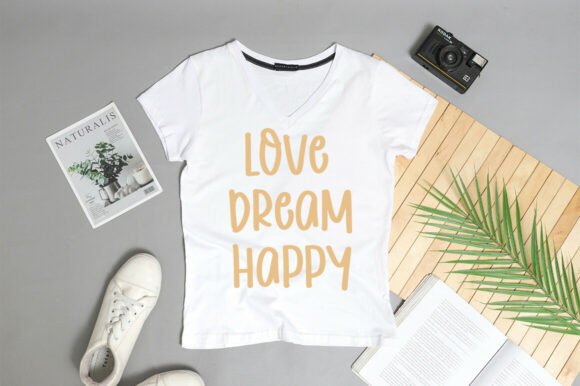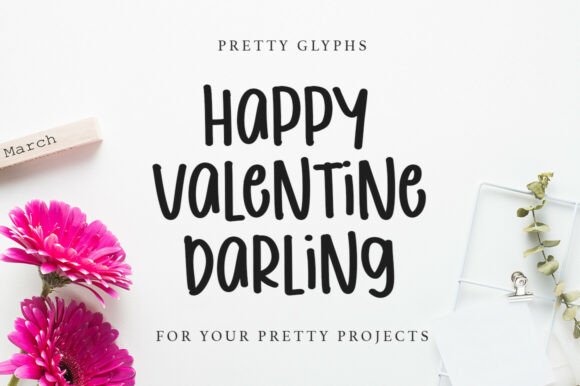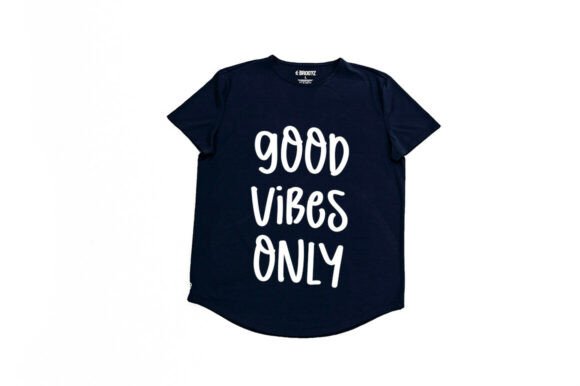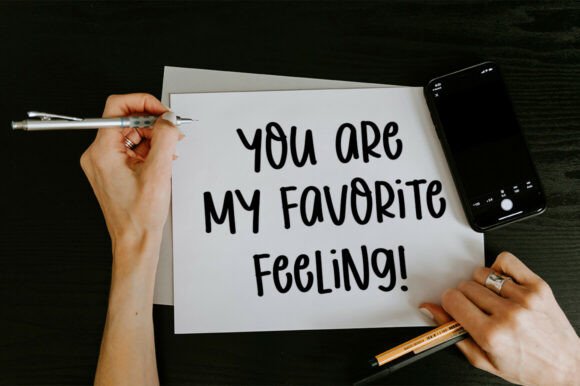
Introduction to Kernalis Font Font
Fonts play a crucial role in design, and the Kernalis Font font is a typeface that brings both character and versatility to any project. Whether you’re working on a branding project, a website, or a print design, the Kernalis Font font offers a unique style that can elevate your work.
This handwritten brush font is crafted to feel bold, expressive, and effortlessly stylish.
Inspired by real brush lettering, each character features natural strokes, dynamic movement, and a handcrafted texture that instantly elevates any design Designed for creatives who want a strong personality and authentic vibes, this font brings a perfect balance between casual freedom and modern aesthetics.
Key Features of Kernalis Font Font
Why Choose Kernalis Font Font?
The Kernalis Font font is more than just a typeface – it’s a design tool that helps you communicate your message with style and clarity. Its unique character set and versatile design make it suitable for a wide range of applications, from elegant invitations to bold headlines.
With its carefully crafted letterforms and balanced proportions, the Kernalis Font font ensures readability and visual appeal across all mediums.
What makes Kernalis Font font special?
The Kernalis Font font stands out with its unique design, exceptional readability, and versatility across various design applications.